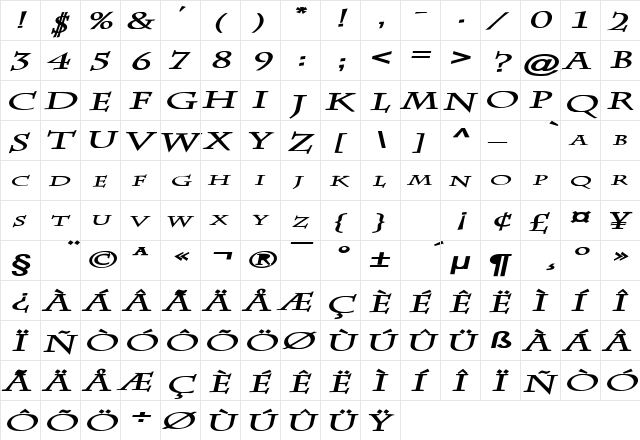
Chaz Extended Bold Italic
Design Context for Chaz Extended Typeface
Chaz Extended takes a measured approach to typography — its balanced proportions and neutral character make it a reliable workhorse for both digital and print work. Its italic angle brings a sense of urgency and motion to the letterforms. Its bold stroke weight gives it real presence on the page.